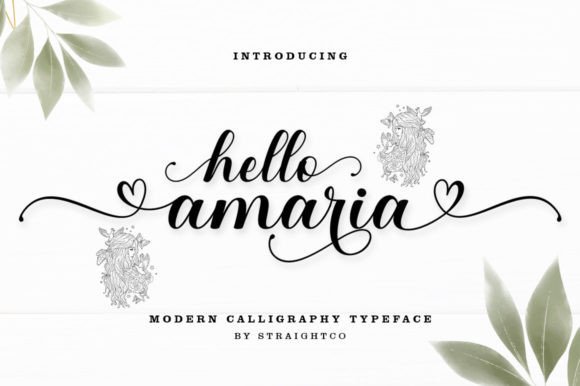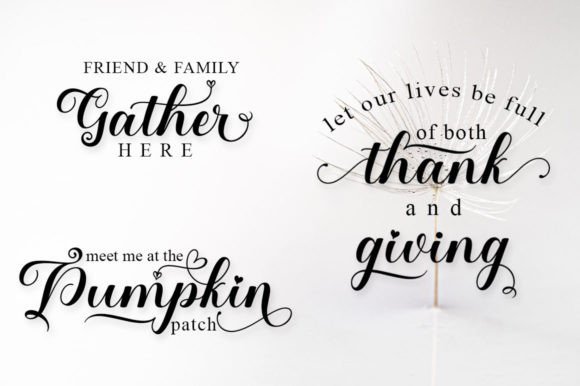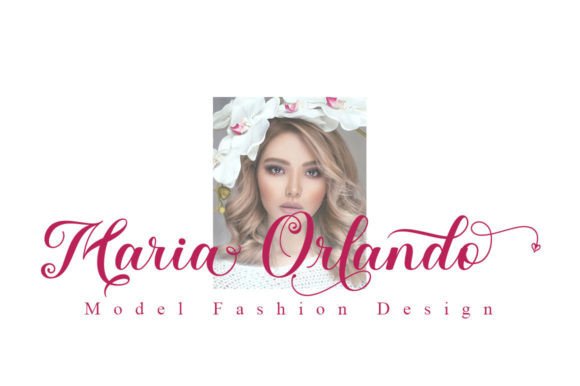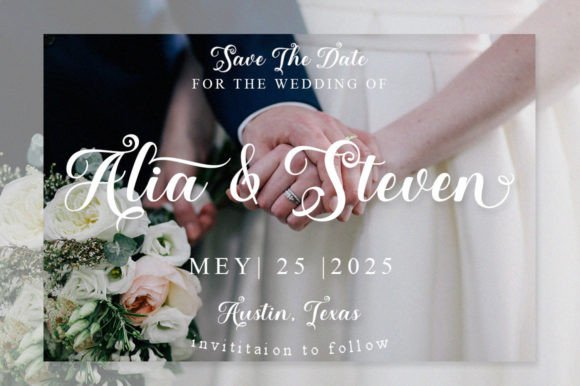
Hello Amaria Font
About the Hello Amaria Font
Explore the possibilities with Hello Amaria Font, a font that offers both beauty and functionality. Hello Amaria is a modern calligraphy design. This font is casual and pretty with a stroke. It can be used for various purposes. such as logos, product packaging, wedding invitations, branding, headlines, signage, labels, signatures, book covers, posters, quotes, and many more.
Hello Amaria’s casual elegance makes it ideal for headlines, short text blocks on branding materials, and projects requiring a touch of hand-lettered charm. It excels in applications like wedding stationery, product packaging, and short-form marketing materials where its refined strokes create a memorable impact. Avoid using it for lengthy body text or UI elements; the calligraphic nature can hinder readability in continuous paragraphs.
Its friendly yet sophisticated personality pairs well with clean sans-serif fonts like Lato or Montserrat for a balanced contrast, or with a classic serif like Garamond or Playfair Display for a more traditional feel. Consider pairing it with a geometric sans-serif for a modern, minimalist approach.
For a playful feel, a script font like Great Vibes could be used as an accent; for a more sophisticated aesthetic, a simple, thin sans-serif like Open Sans can provide necessary contrast and readability.
Hello Amaria Font Usage Examples
Hello Amaria Font Example